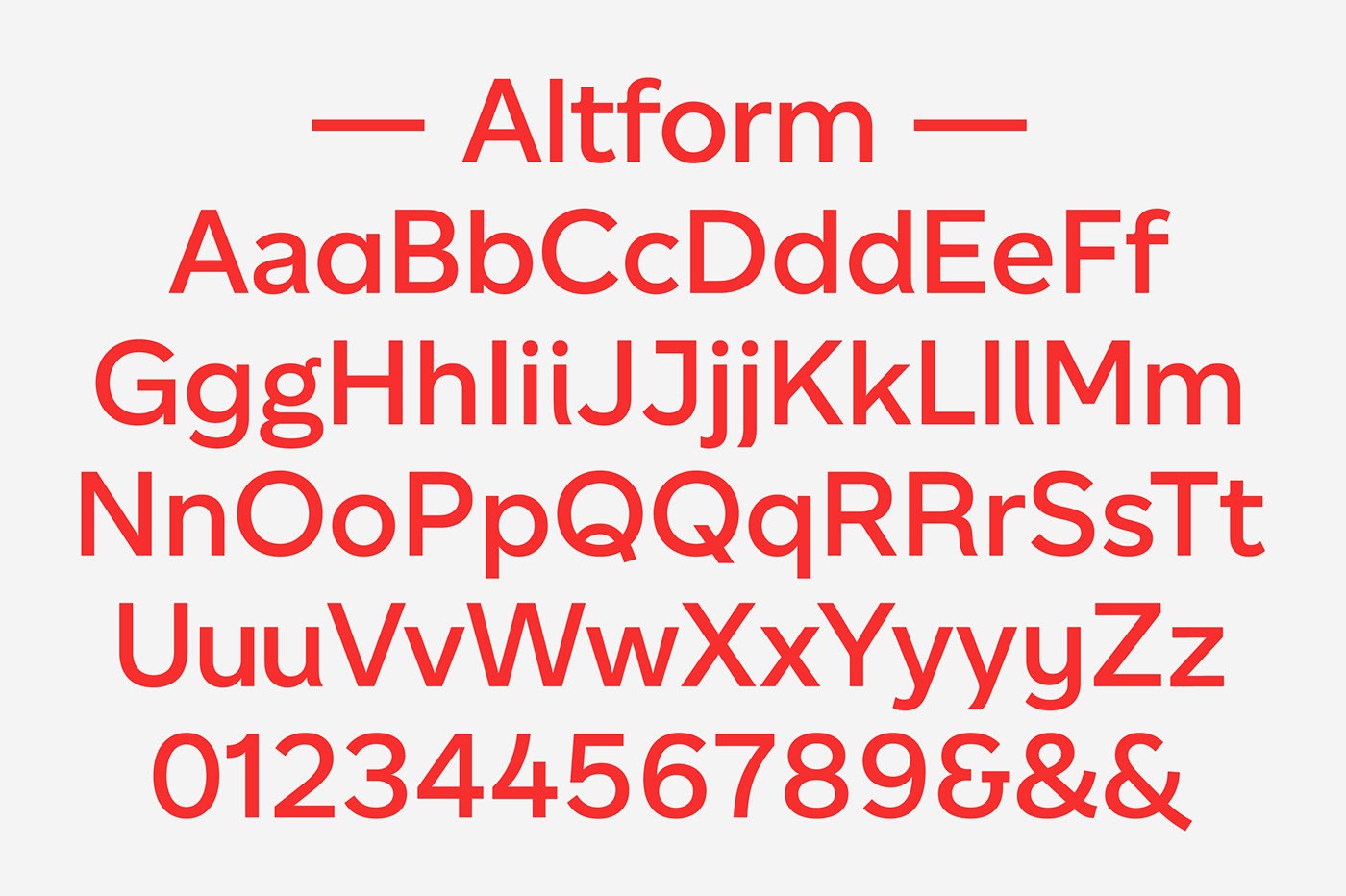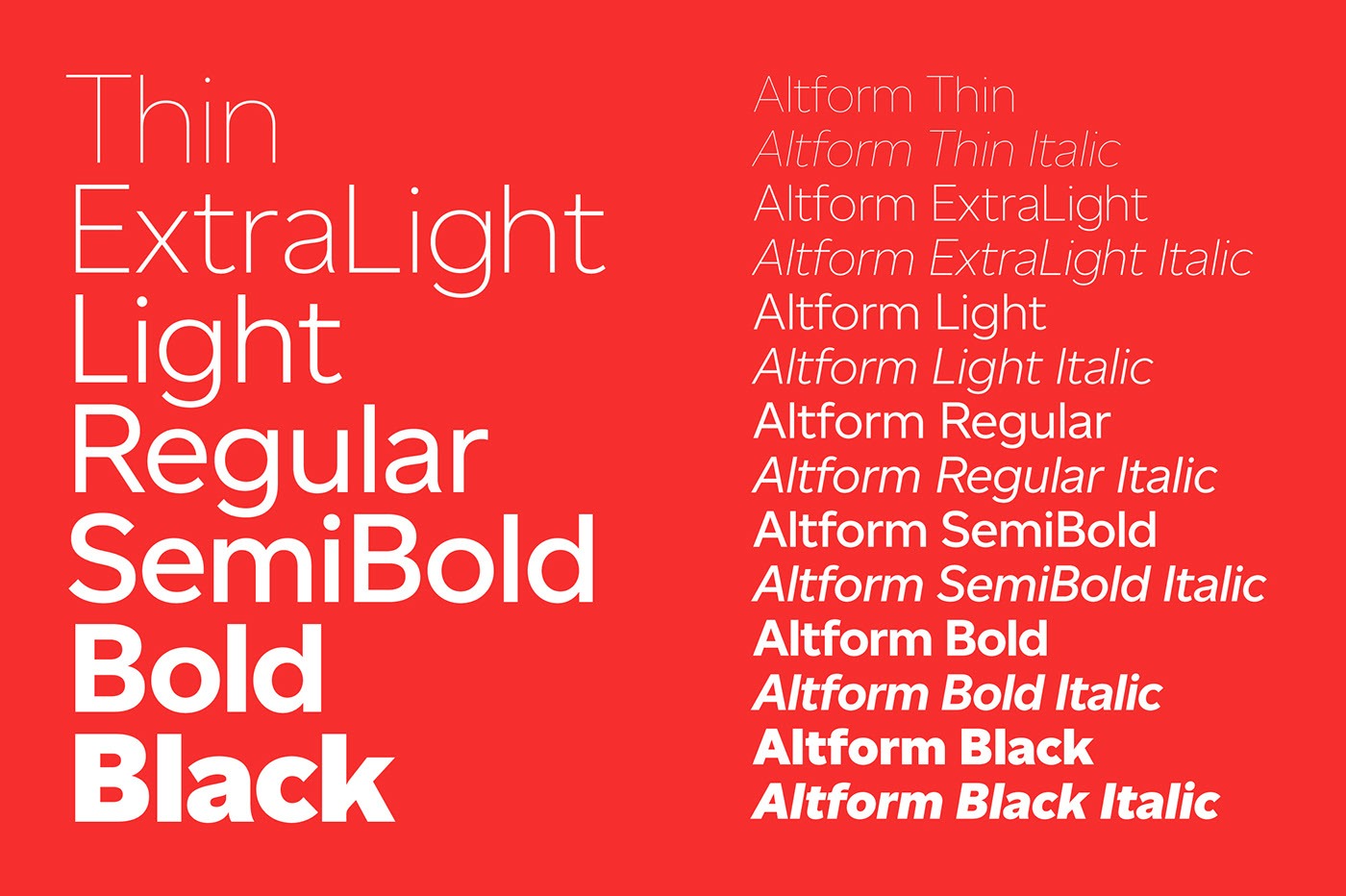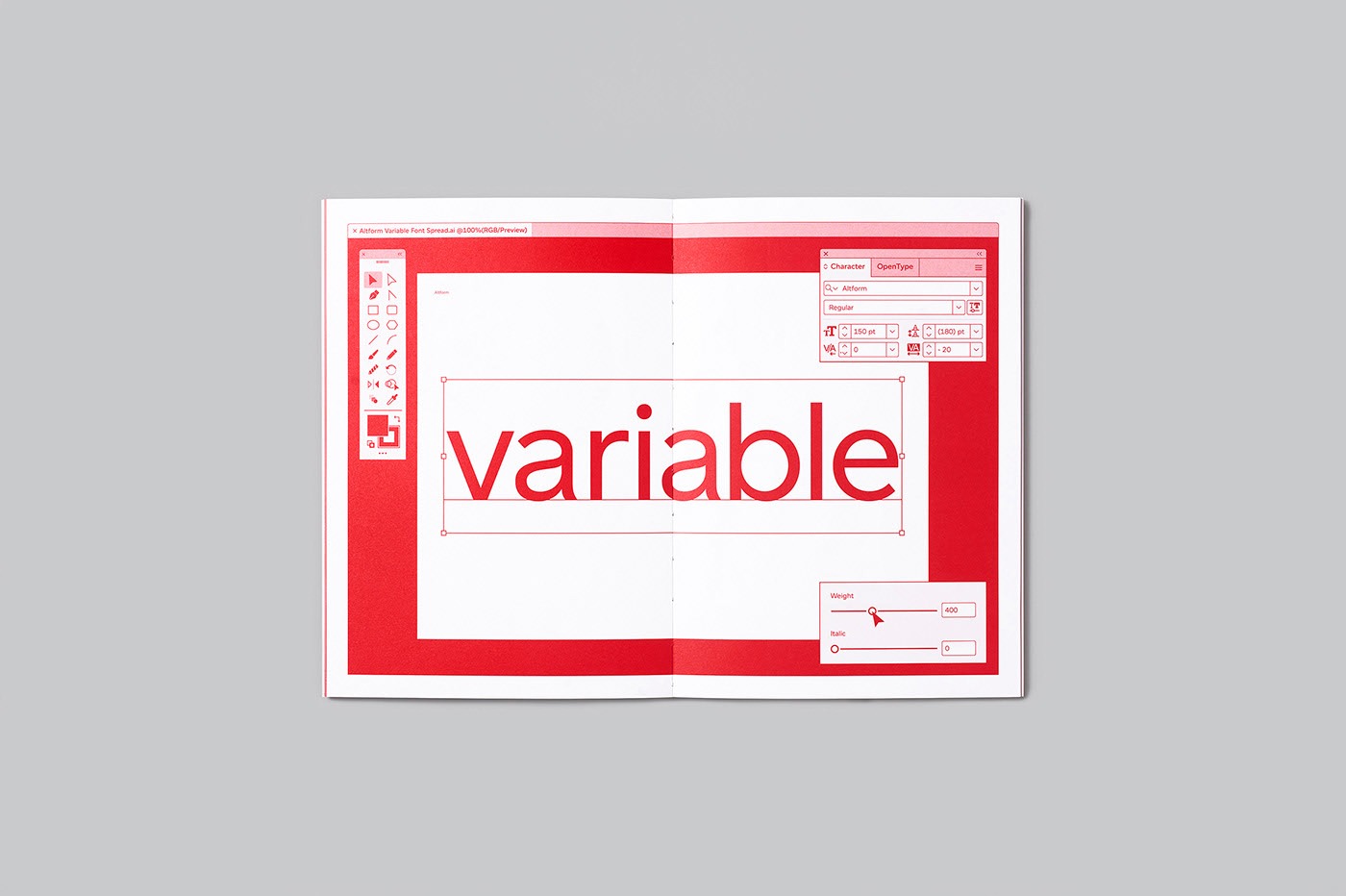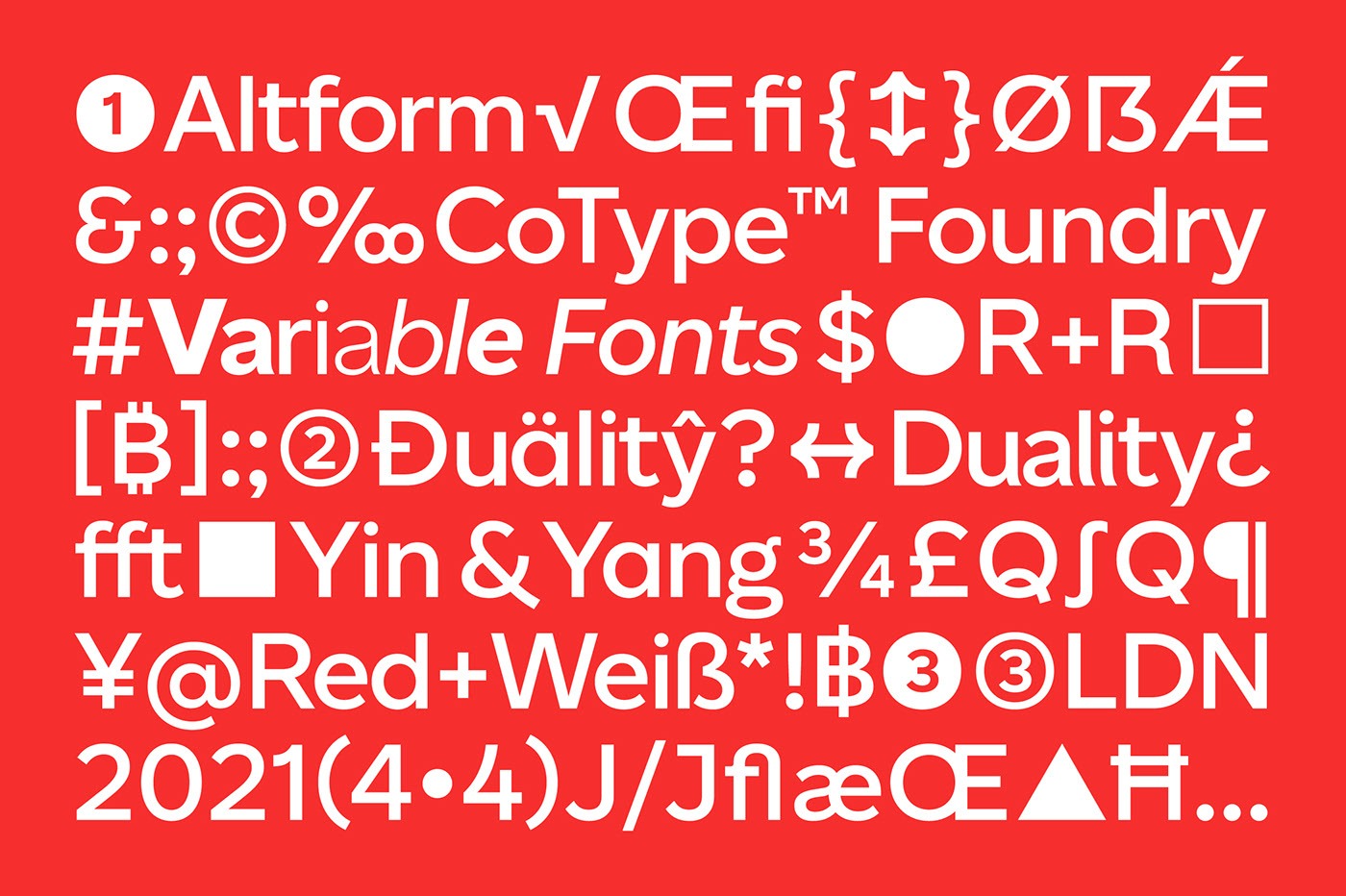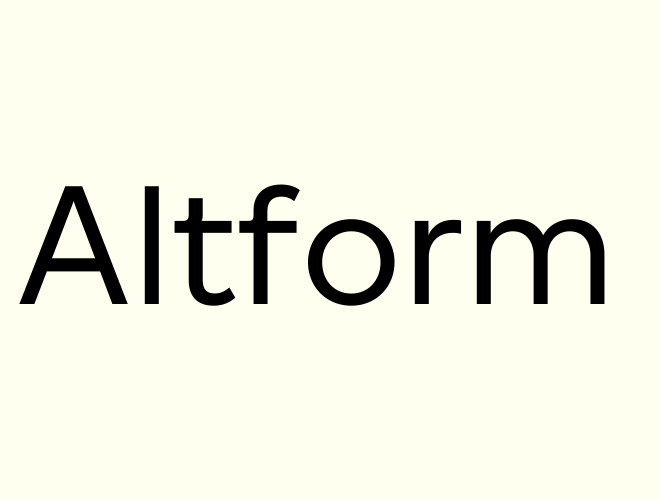
Altform Font Family
Altform Sans Serif Font
This is a modern geometric font family created by Mash Creative with simple sans serif characters. Resulting from the marriage between a geometric sans and a grotesque, this typeface has a universally neutral appeal. Upon closer inspection, the reader will notice tiny exquisite curves in some characters like R, t, and k, which give Altform a subtle sophistication and recognisable character.
This apparently simple sans serif reveals an alternate personality in the OpenType features. With 11 stylistic sets to choose from, Altform allows you to enable alternate shapes, so that you can achieve a tailored look for every project. Perhaps the most interesting set of stylistic alternates are the “wind-blown” d, i, j, l, u, and y, which feature a slight curvature in the stems and infuse the typeface with a dynamic quality. Single-storey alternates of a and y can easily add a geometric simplicity to the typeface. Alternates of g, J, Q, R, and 4 as well as three different ampersands can each be switched on and off in the stylistic sets. To complete the kit, Altform packs a full set of weight-matched arrows, circled numerals, and geometric symbols, making this type family a perfect candidate for complex editorial and branding projects.
Altform is available in seven weights, each with italics, ranging from Thin to Black. The extensive language support allows type setting in most European languages written with the Latin script.